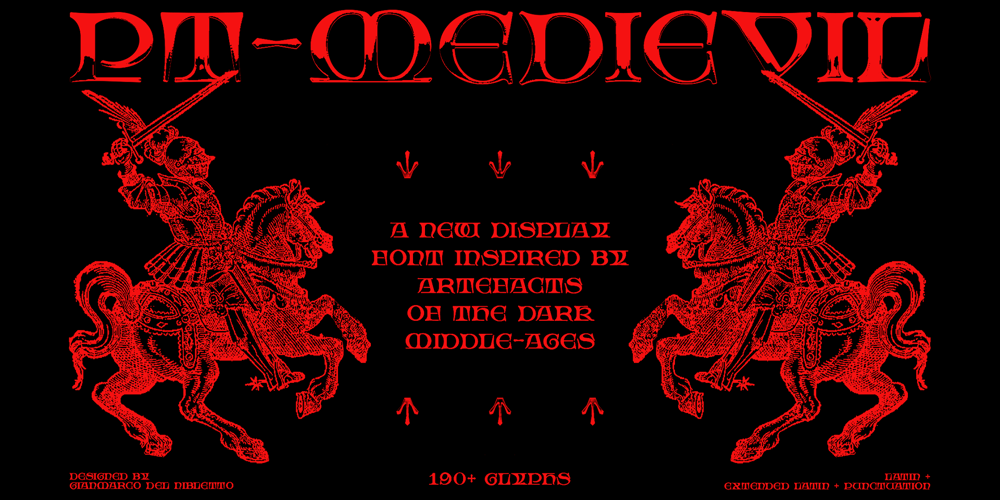
PT Medievil Font Family was designed by Gianmarco Del Nibletto and published by Paupe Type. PT Medievil contains 1 styles and family package options. PT MEDIEVIL is a new display font inspired by artefacts of the dark middle-ages with a contemporary twist. It contains 195+ meticulously crafted glyphs characterized by: -Upper part indented inward to be true to imperfect handwritten medieval typography -Smooth curve shapes -Rounded intersections between shape sections -Rounded serif Easily create headlines, display titles, subheadings, body copy.